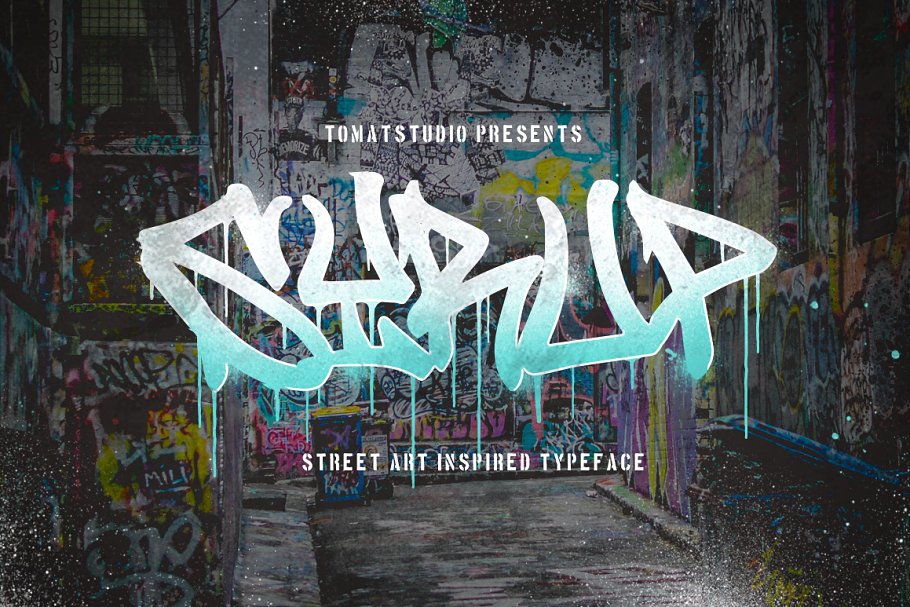
Introducing Syrup, the ultimate graffiti inspired typeface that will take your designs to the next level! Created by Tomat Studio in collaboration with Indonesian graffiti artist Nick23, this font is a true masterpiece that captures the raw energy and edginess of street art.
Syrup is the best font for street signs, with its bold uppercase letters and unique combination of regular lowercase characters. It is versatile and can be used for various design needs, making it a must-have in your font collection.
But what sets Syrup apart from other graffiti fonts is its ability to create a truly authentic graffiti look. By adding flat drop shadows, extrude effects, lighting, and outlines, you can transform your designs into stunning works of art. Don't believe us? Take a look at the sample and see for yourself!